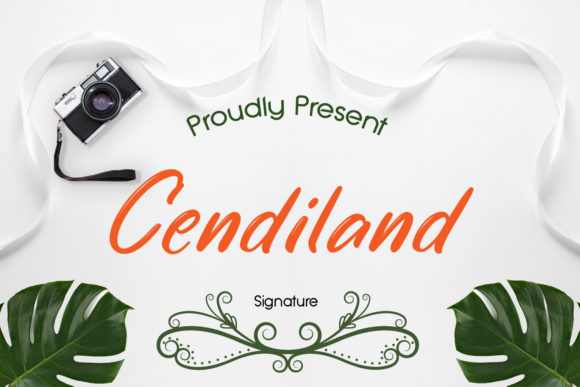
Unleash the enchanting allure of Cendiland, a font that weaves a captivating tapestry of timeless beauty. Its graceful strokes, imbued with a delicate human touch, evoke a profound emotional resonance, alluring you to express your creativity in its embrace.
With Cendiland, the written word transforms into an art form. Each meticulously crafted letter exudes a captivating individuality, breathing life into your designs and leaving an indelible mark on the hearts of your audience.
Step into a world where words dance with ethereal grace. Cendiland's script font, inspired by the beauty of English writing, empowers you to craft logos that radiate sophistication, branding that speaks volumes, and quotes that resonate deeply with your soul.
Embrace the timeless elegance of Cendiland and witness the transformation of your designs. Its versatility knows no bounds, inviting you to explore a myriad of creative possibilities. Whether you seek to evoke a sense of nostalgia, convey a message of love, or simply add a touch of whimsical charm, Cendiland will guide you effortlessly.
Indulge in the artistry of Cendiland and elevate your designs to new heights. Let its enchanting strokes ignite your imagination and weave a tapestry of beauty that will captivate all who behold it.